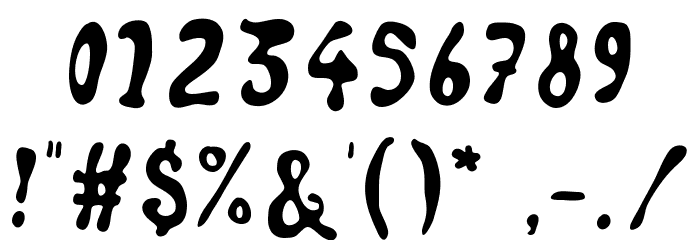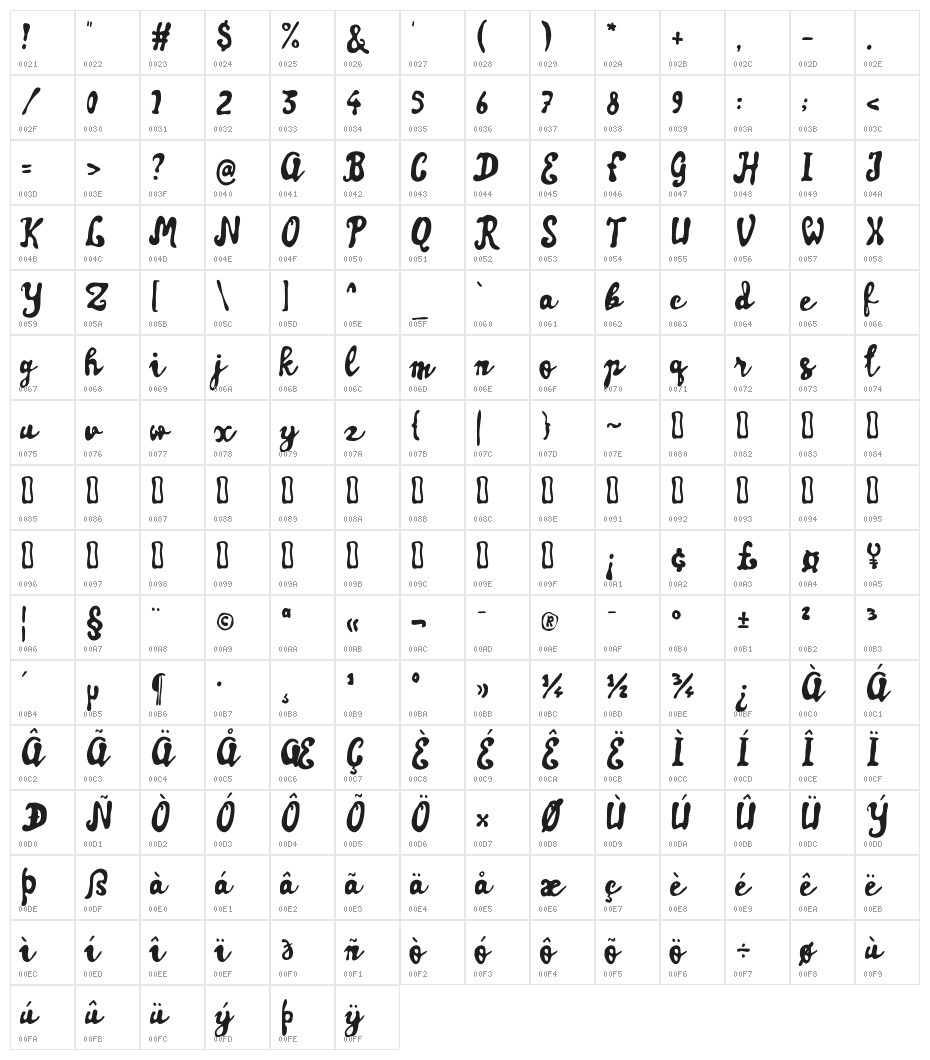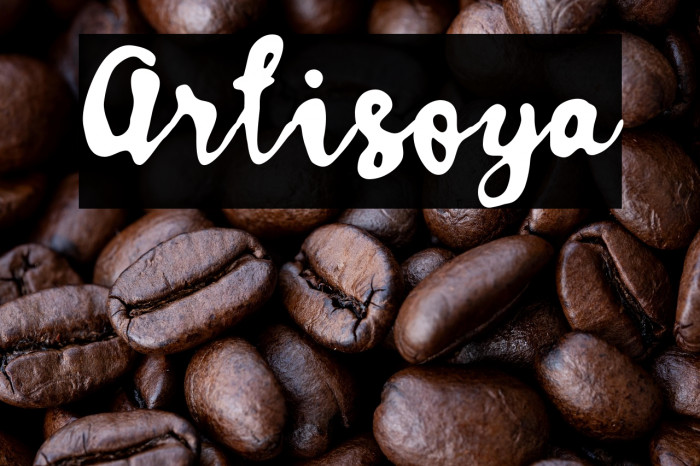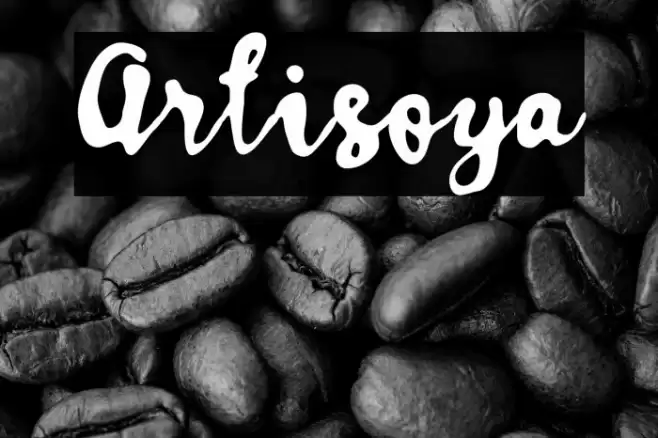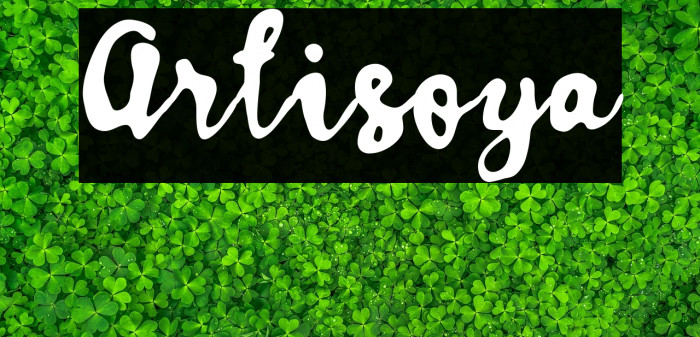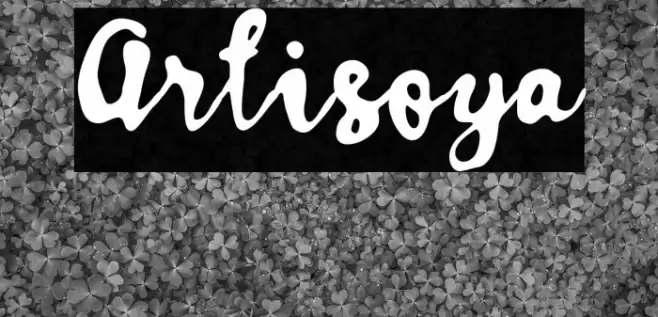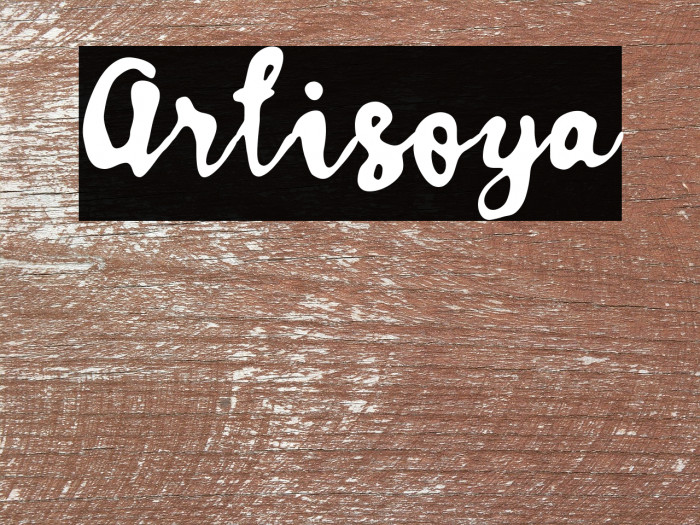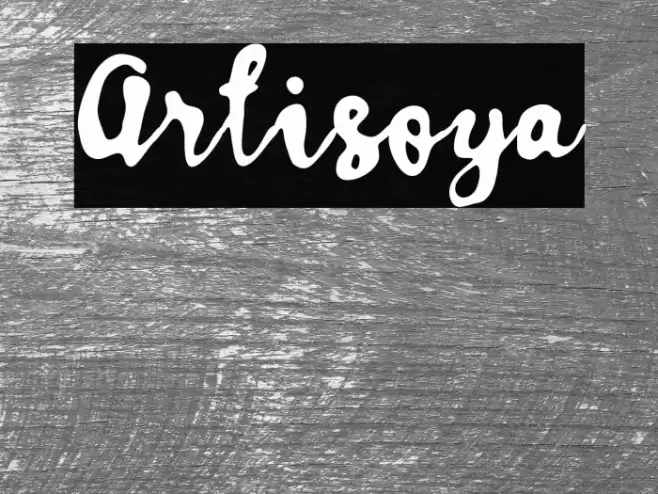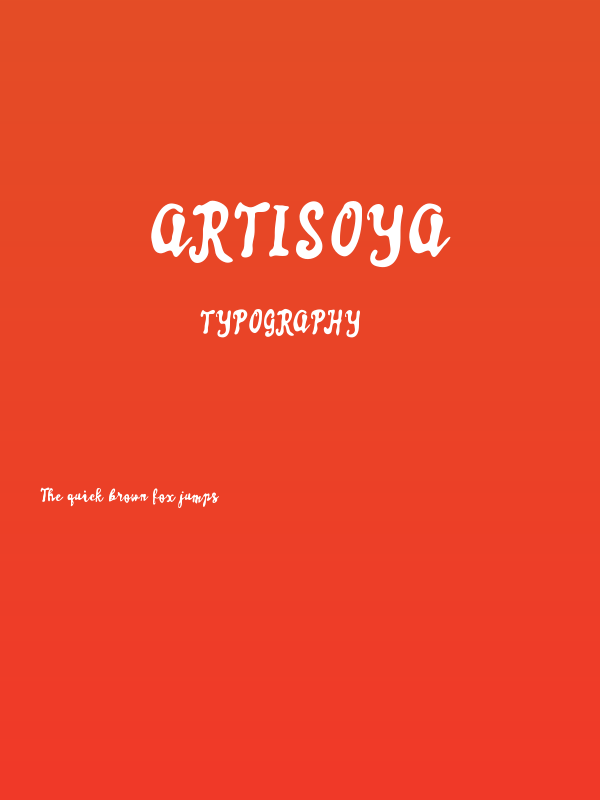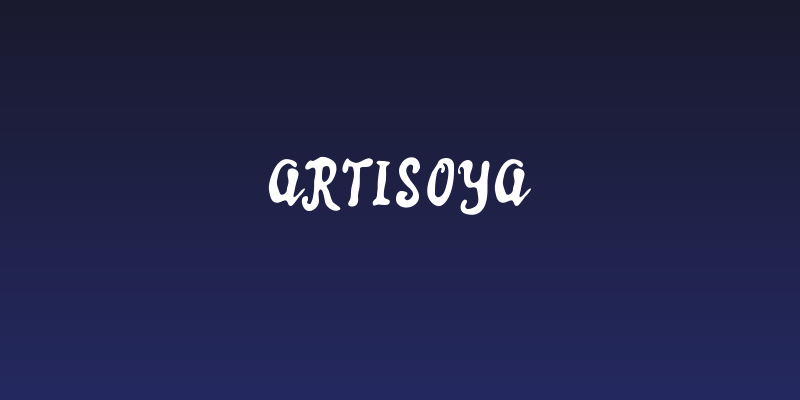
Artisoya Font
Artisoya Description
This font features a bold, playful script style with a handwritten feel. The characters are rounded and have a whimsical, artistic flair, making them stand out with a unique personality. The uppercase letters are slightly larger and more pronounced, while the lowercase letters maintain a consistent flow, adding to the font's charm. Numbers and special characters follow the same playful design, ensuring a cohesive look across all text. The font's thick strokes and smooth curves give it a lively and dynamic appearance, perfect for creative projects.
| Proposed Projects | Ideal for creative projects such as greeting cards, posters, logos, and branding materials that require a fun and artistic touch. |